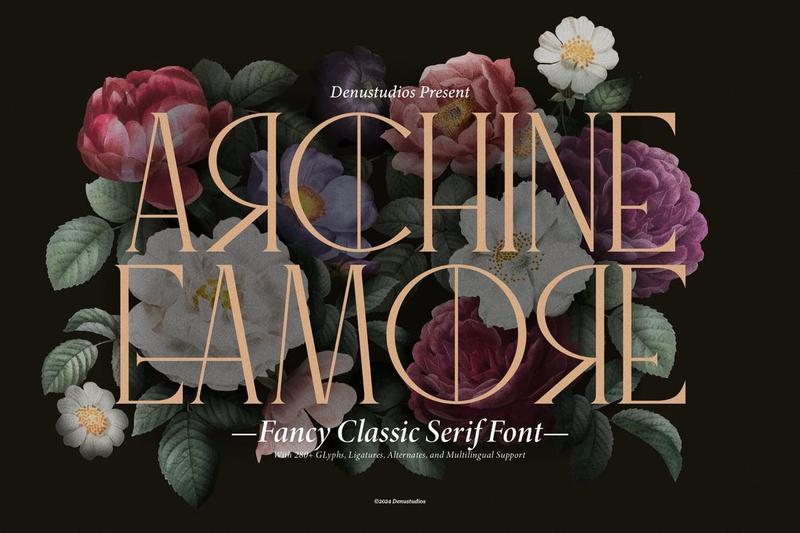
Archine Eamore | Fancy Classic Serif SAHAHMF
The Archine Eamore font is designed to deliver a strong, versatile visual character, balancing aesthetics and readability. Every detail is carefully crafted to ensure a clear, consistent, and visually appealing result across a wide range of design needs.
With well-structured letter proportions and support for features such as alternate characters and ligatures, this font allows for greater creative exploration. The final result is dynamic, distinctive, and professional, making it adaptable to a range of design styles.
Standard glyphs
Alternate and Ligature